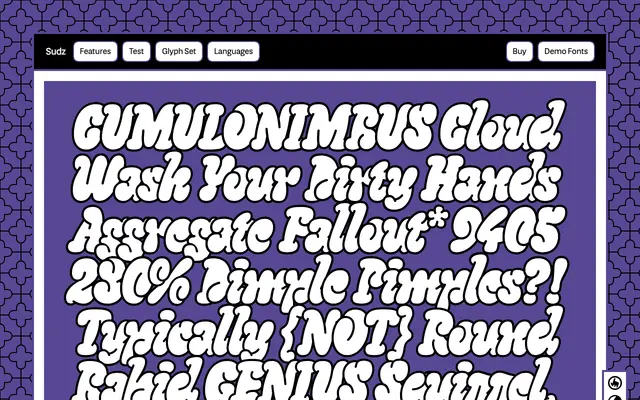
Manic Type · Jamie Chang · 2024
A COLR colour font by Jamie Chang drawing on 90s graffiti and bubble letter traditions, built from winding layered strokes.
Released in 2024, this single-style display script uses COLR font technology to layer letterforms and tighten spacing in ways conventional fonts cannot achieve. Its forms reference 90s graffiti and bubble lettering, with alternates for C, G, S and r that shift between bubbly and cursive moods. Best suited to headlines, packaging and branding where exuberance is the point.
Sudz is a colour display script drawn from bubble letter and 90s graffiti traditions, using COLR font technology for layered letterforms. Its winding, exuberant strokes place it firmly in the display category with a graffiti script subcategory.